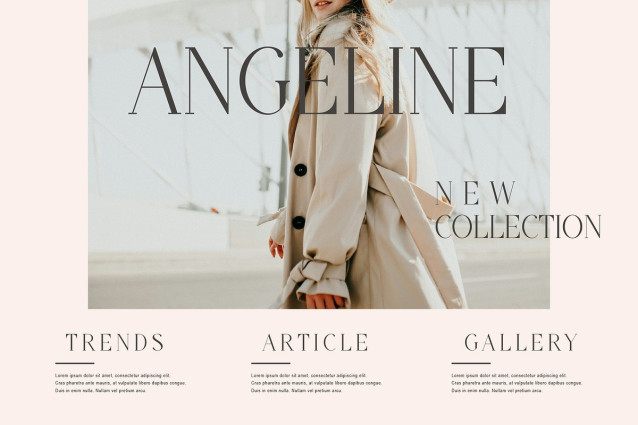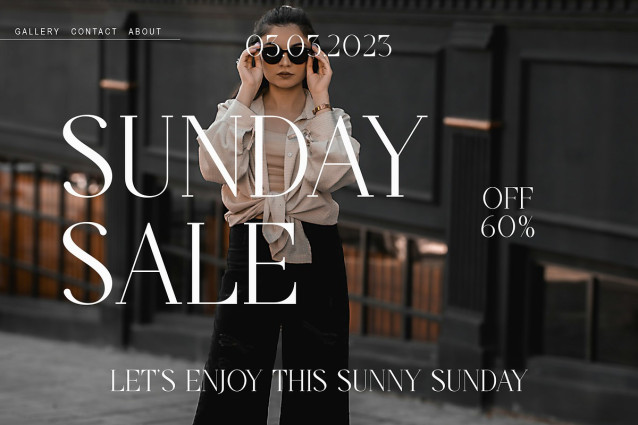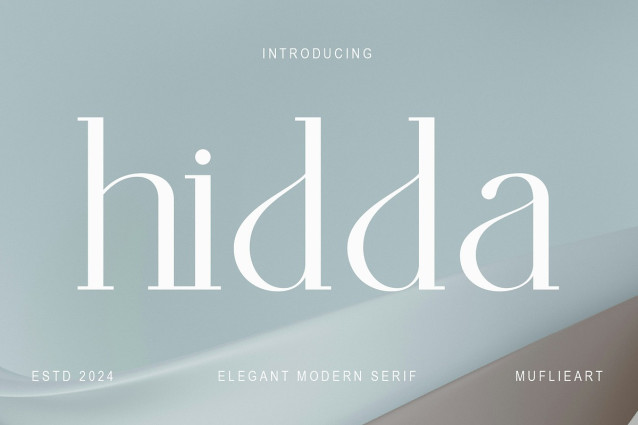
Hidda Font
Hidda Font A modern, elegant and unique serif look. With its modern, elegant and unique appearance, Hidda brings a luxurious, minimalist and classy impression to the projects you need such as websites, modern logos, branding identities, social media quotes, wedding stationery, magazines and various other needs!
Hidda displays the capital letters A to Z which are unique and classy. And it is equipped with numbering, punctuation, and multilingual support and is also equipped with a unique letter binding so that Hidda becomes a beautiful font that can be adapted to various projects and jobs that you want.